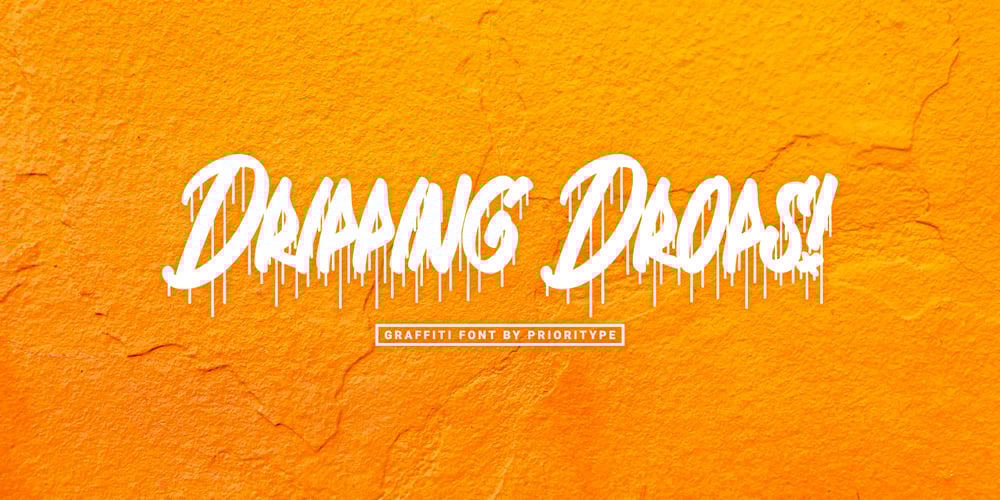
Dripping Drops Font Family was designed by Prio Nurokhim Aji and published by Prioritype. Dripping Drops contains 1 styles and family package options. Inspired by paint dripping and combined with the graffiti artist culture, this font is both eye-catching and character. You can use them in your designs such as posters, skateboard boards, merchandise, music covers, t-shirts, music events etc.Features:-Uppercase-Lowercase-Numeral-Punctuation-Multilingual-PUA Encoded-Opentype FeaturesThanks.